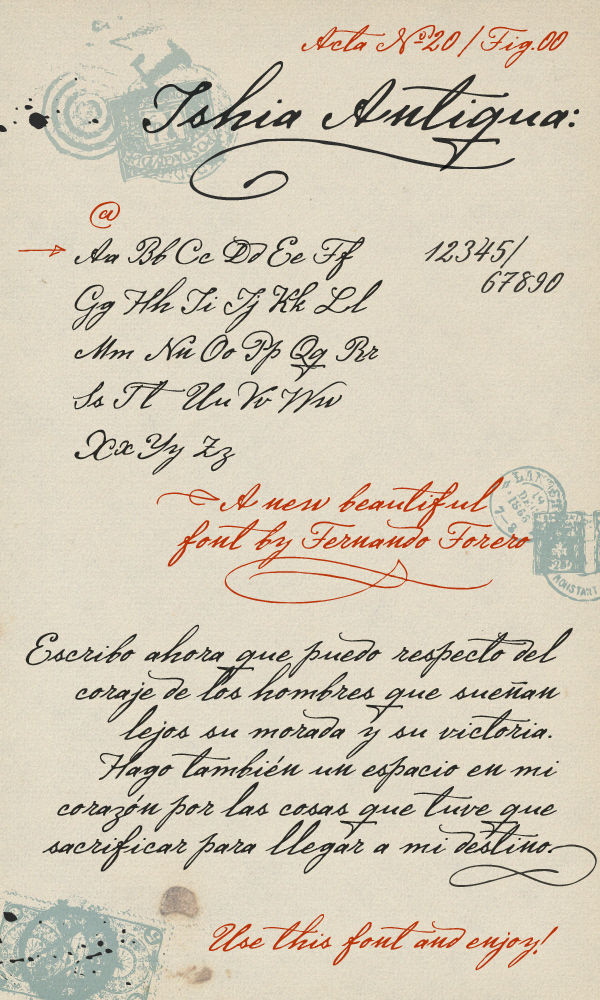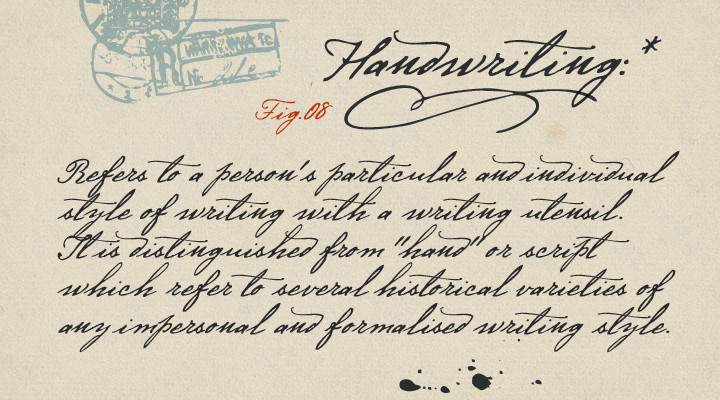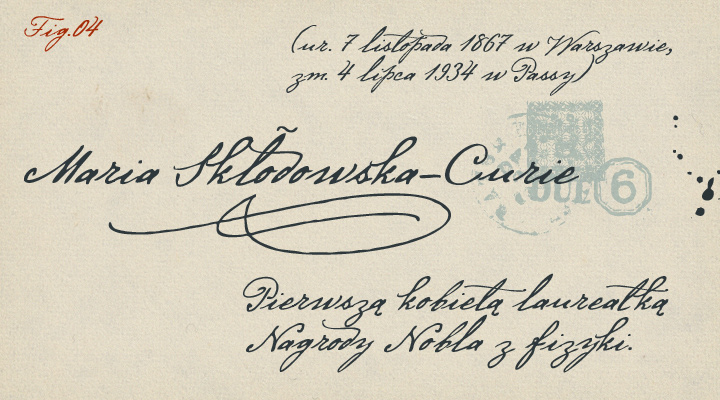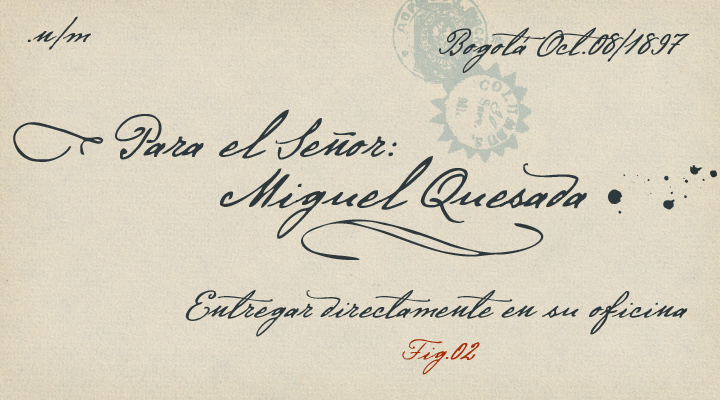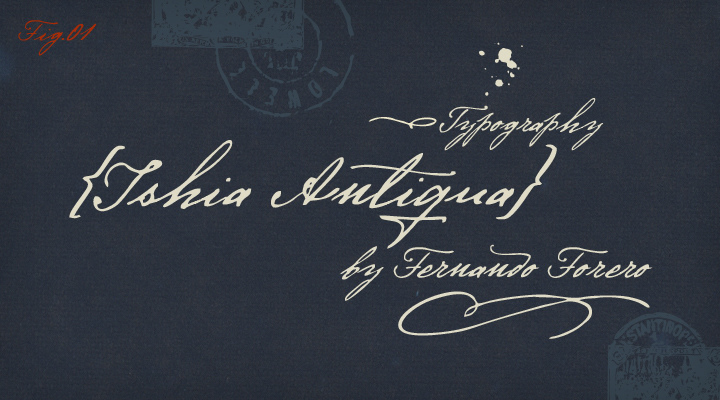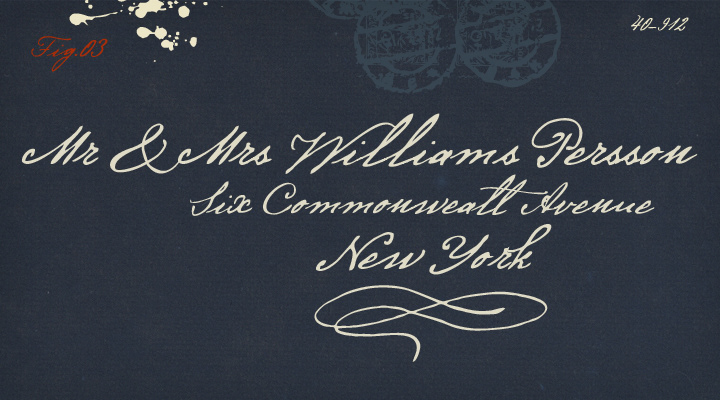
ISHIA ANTIQUA is a casual, carefree script typeface inspired by the calligraphy of the late 19th century.
The natural movement of its design makes her organic, beautiful and elegant as well as full of character and romance.
The following images are a short sample of it's visual presentation.
ISHIA ANTIQUA es una informal, despreocupada tipografía script inspirada en la caligrafía de finales del Siglo 19.
El movimiento natural de su diseño la hace orgánica, bella y elegante a las vez que cargada de carácter y romanticismo.
Las siguentes imagenes son una mustra de su presentación visual.